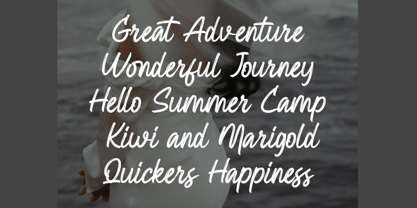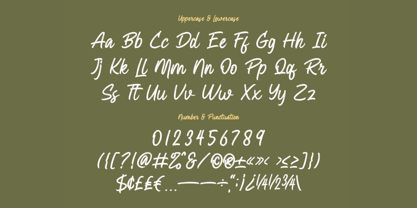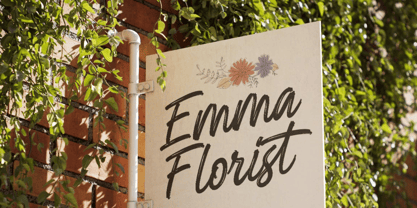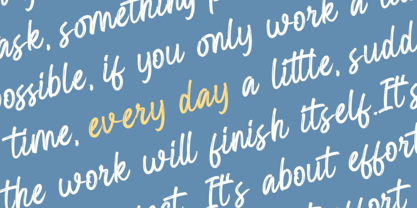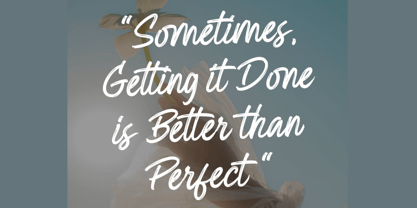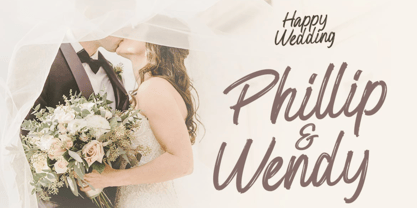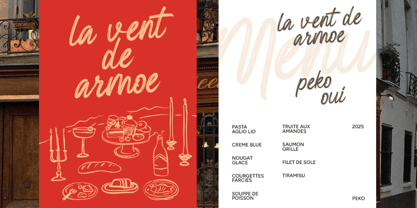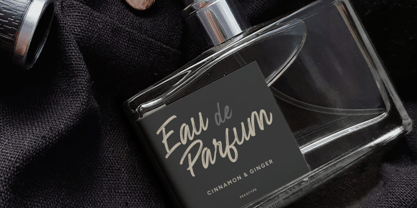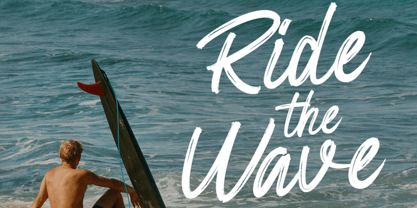
Brmsli
Brmsli is a bold script brush font designed for creatives who want to make a powerful impression. Packed with hand-lettered charm, raw brush texture, and expressive strokes, Brmsli is the perfect typeface for brands and designers seeking an authentic, energetic, and artistic aesthetic.
This font blends fluid curves with rough-edged textures, giving every letter a handcrafted feel that stands out in logos, apparel, posters, social media graphics, packaging, and bold marketing campaigns. Whether you're working on edgy branding or eye-catching headlines, Brmsli brings dynamic movement and handcrafted authenticity to your work.
✿ Key Features:
• Bold Brush Script Style: Hand-lettered with strong brush texture and natural rhythm
• Uppercase & Lowercase Letters: Complete set for expressive typography
• Numbers, Punctuation & Symbols: Designed for full creative control
• Multilingual Support: Covers multiple languages for global reach
• High-Impact Design: Perfect balance of roughness and elegance
✿ Perfect For:
• Creative Branding & Logos
• Posters, Billboards & Advertisements
• Streetwear & Merch Design
• Social Media Posts & Trendy Graphics
• Album Covers, Stickers & DIY Prints
Make your message roar with Brmsli—a bold brush font that speaks with confidence, energy, and handcrafted personality.